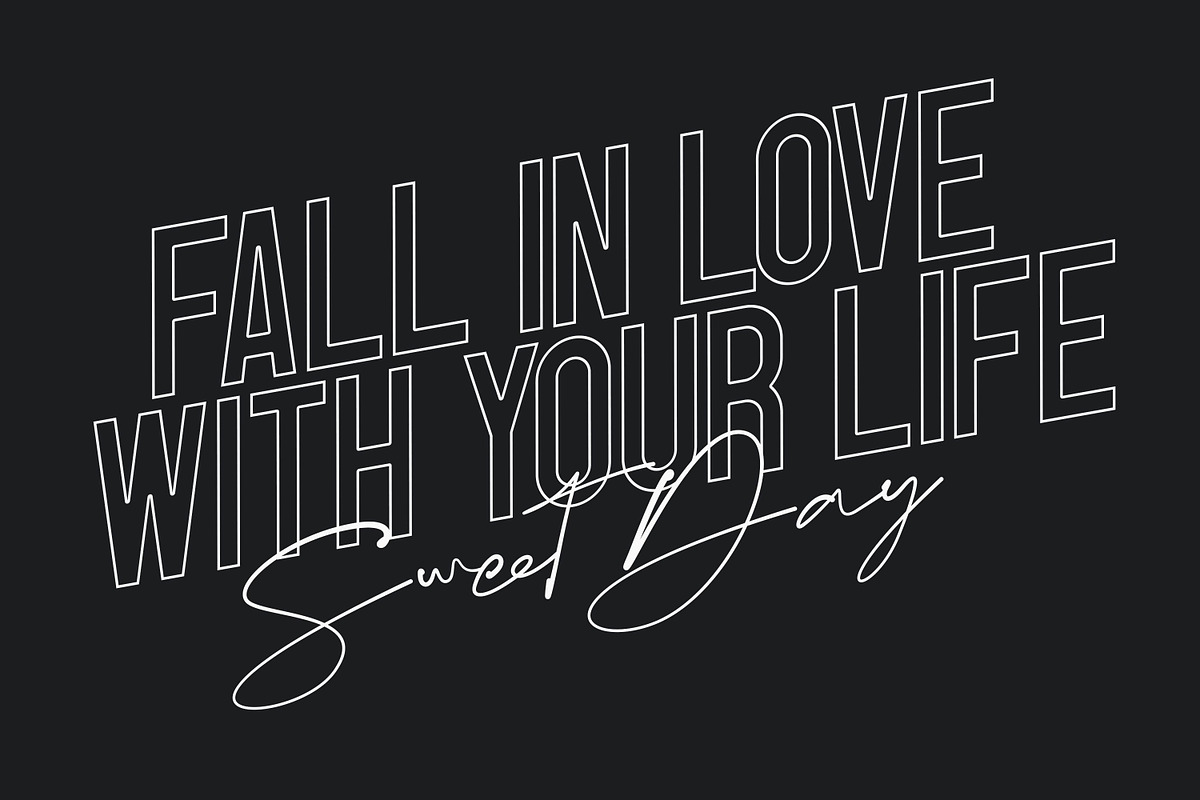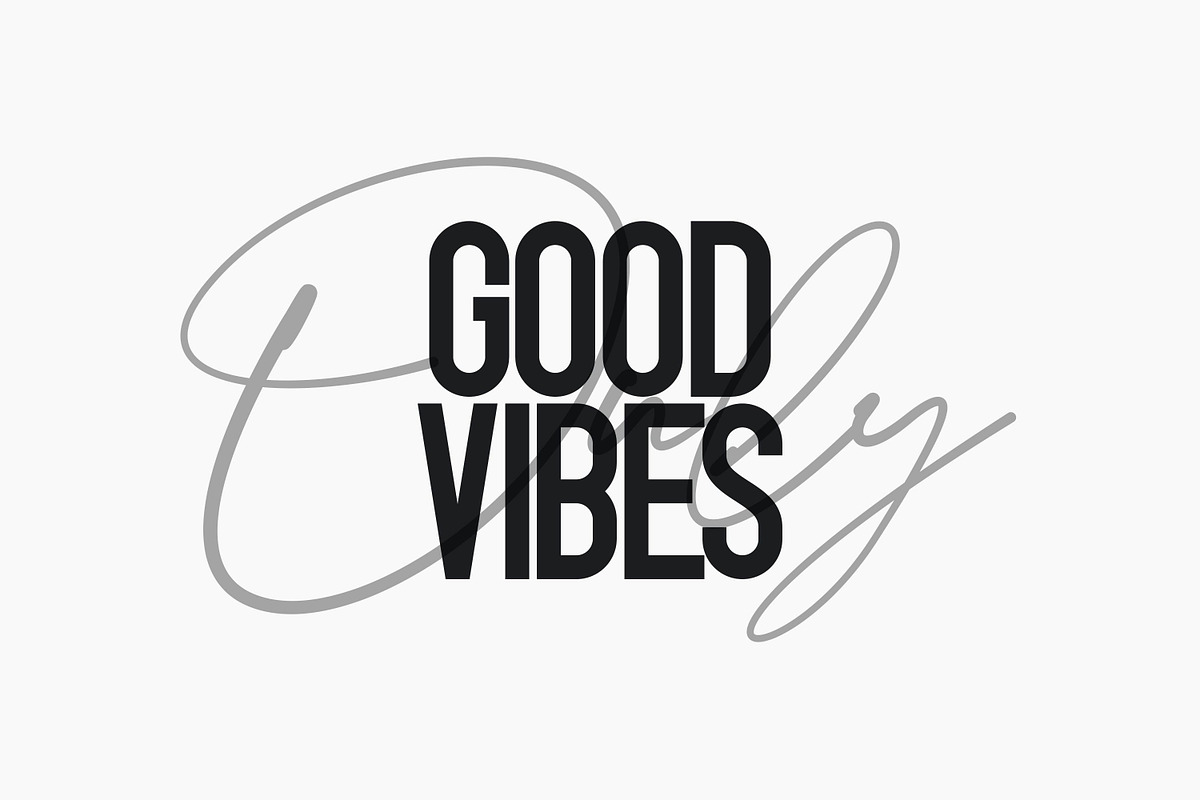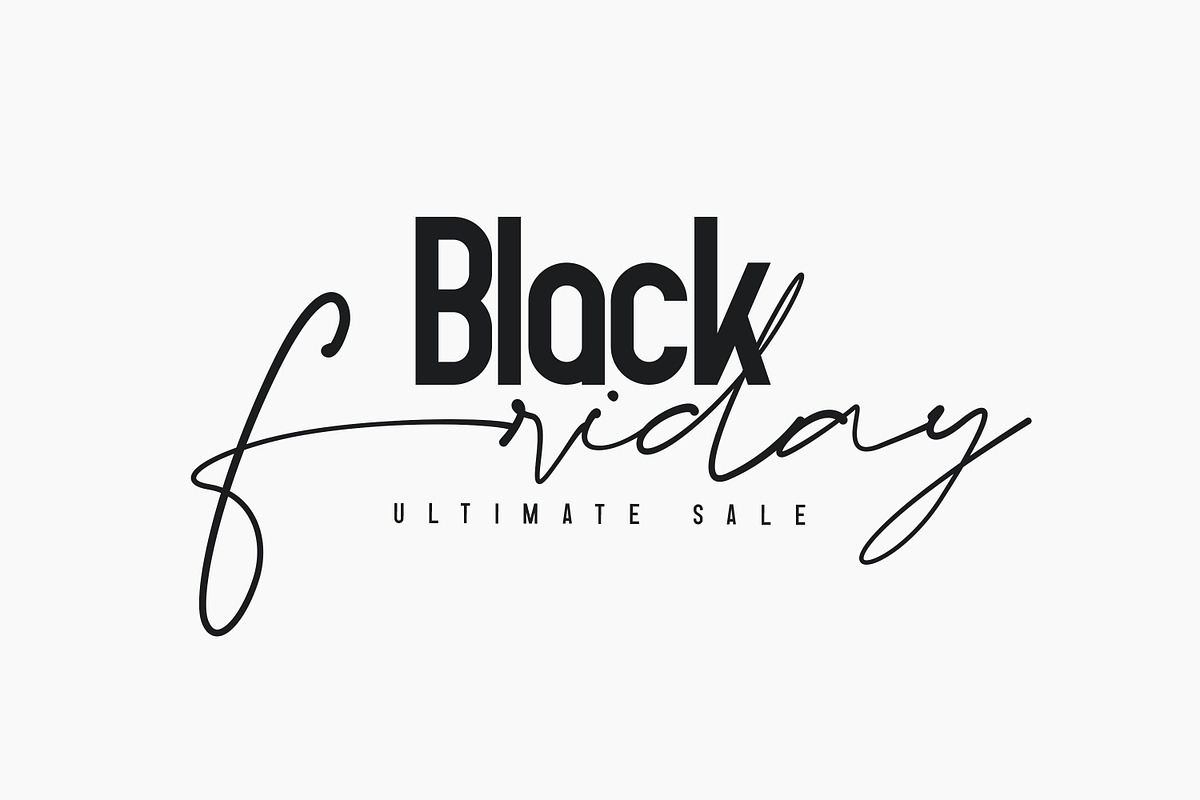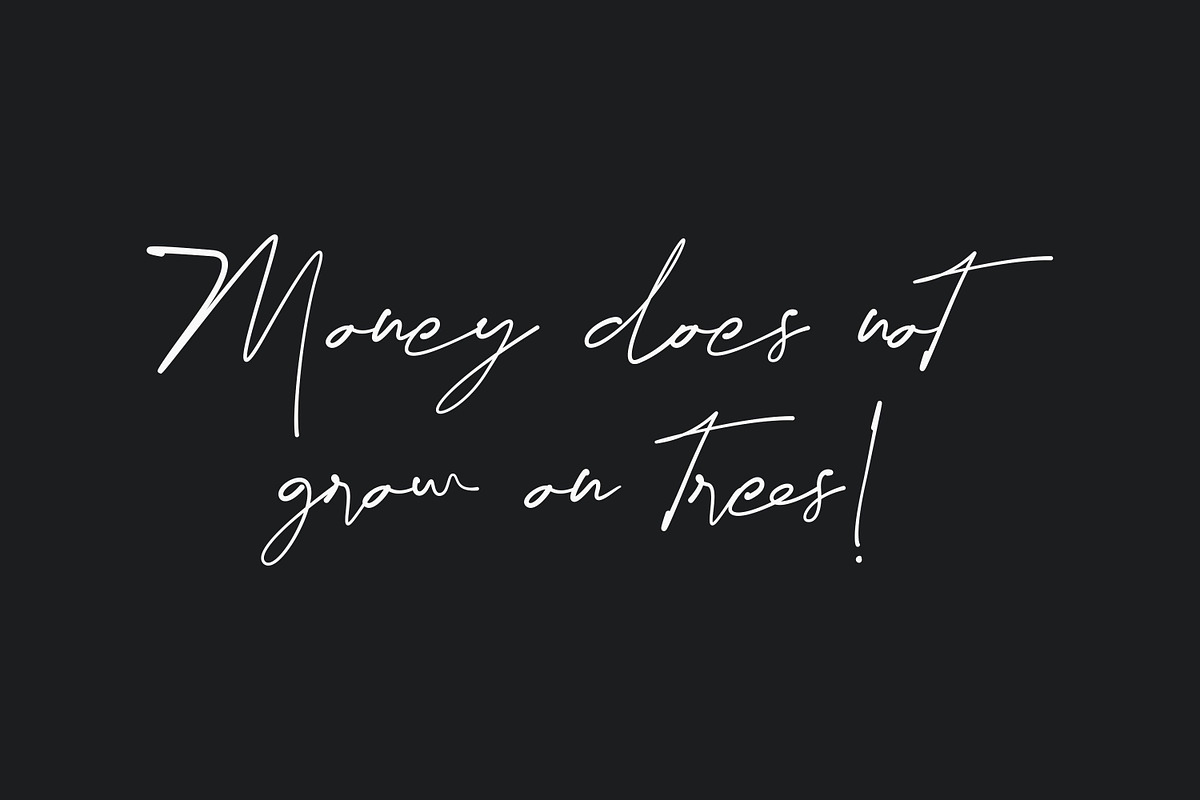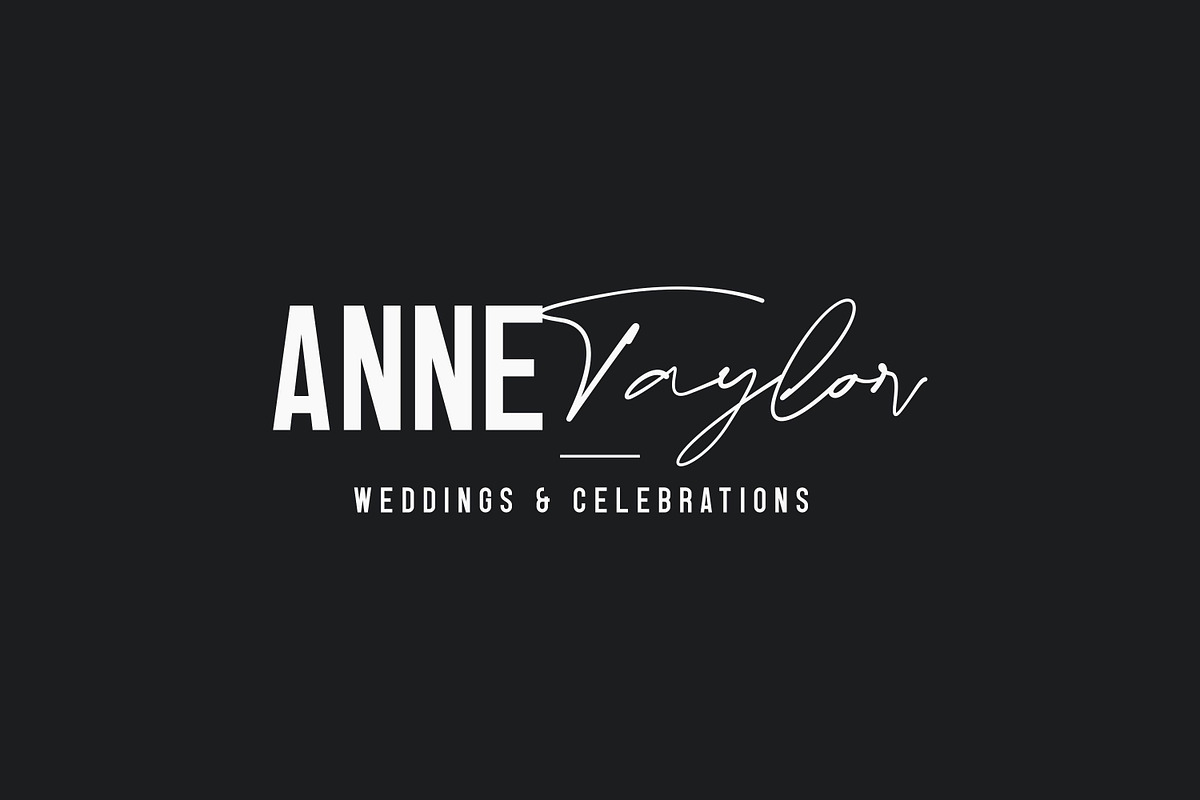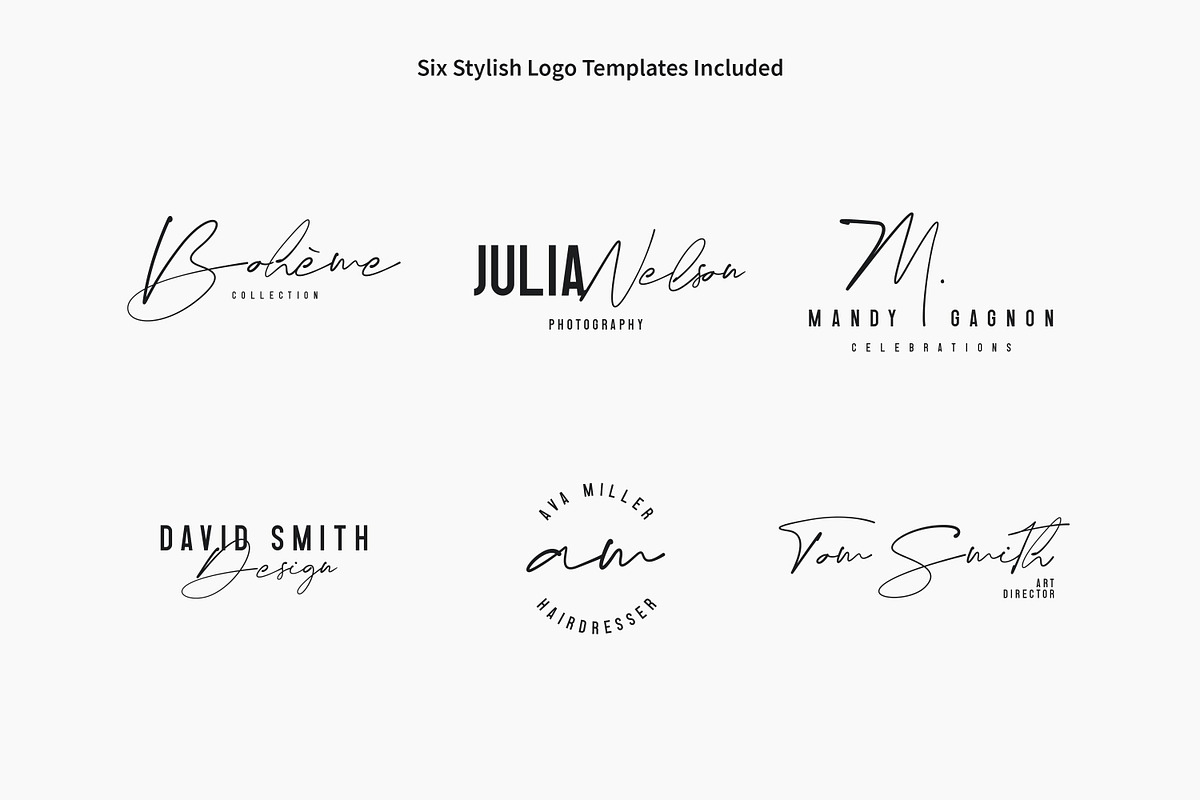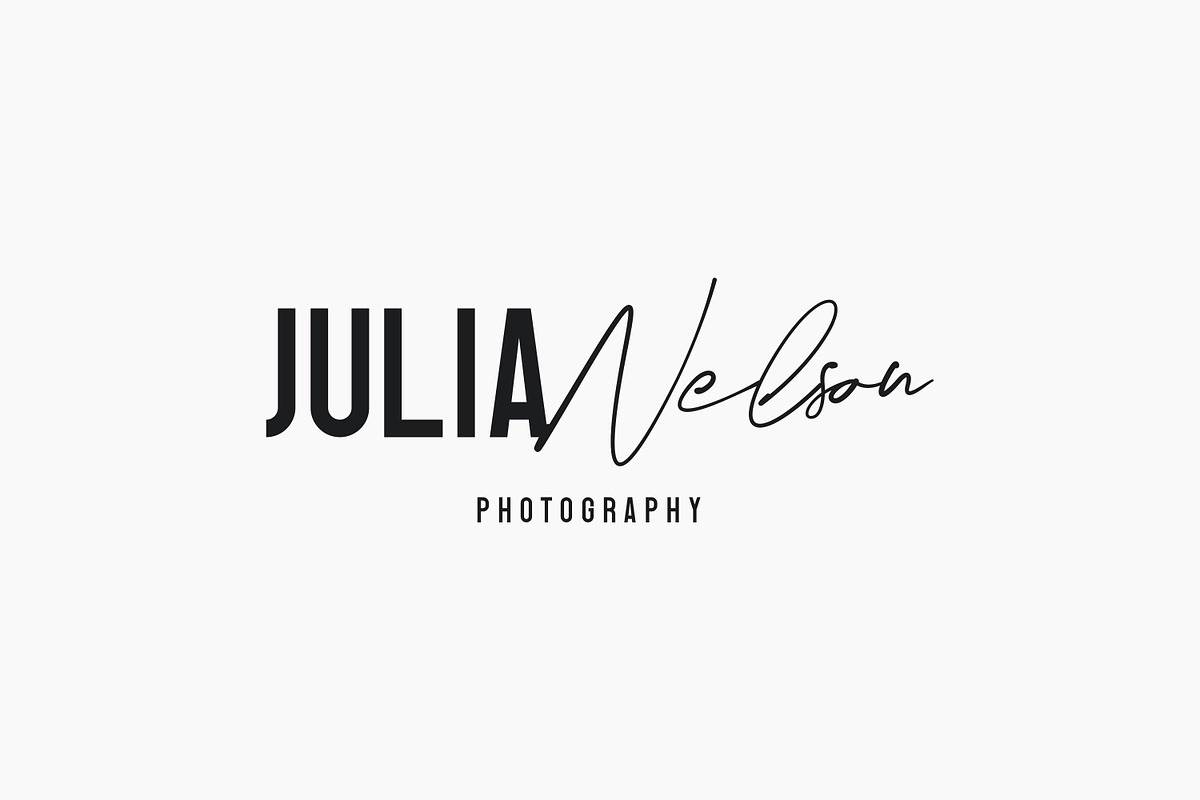
Venice Beach - Modern Font Duo
Venice Beach - Sans & Script Modern Font Duo
3 Styles (Script, Sans, Outline)
209 Characters by Font (Basic & Advanced Sets)
9 Ligatures (Venice Beach Script)
Lowercase & Uppercase